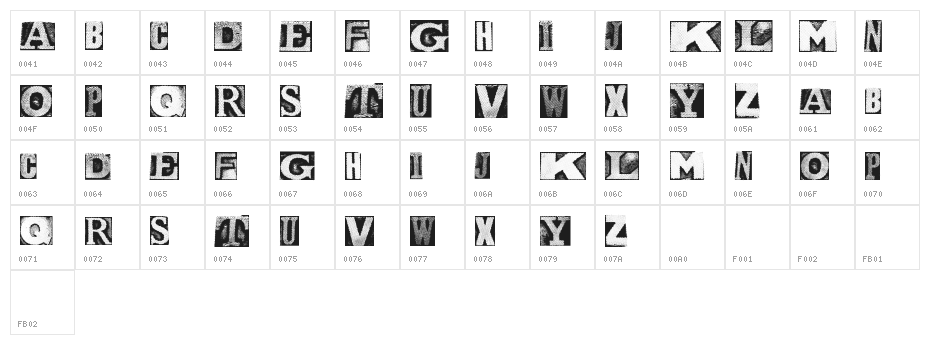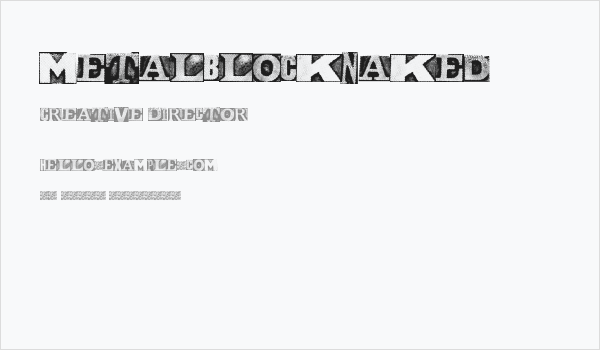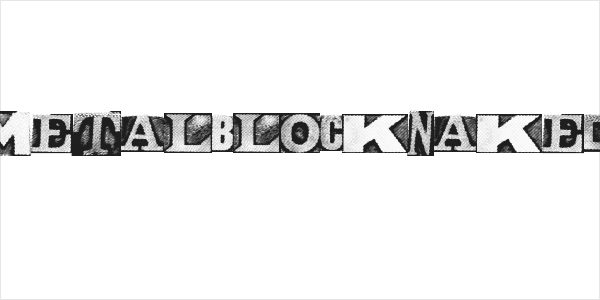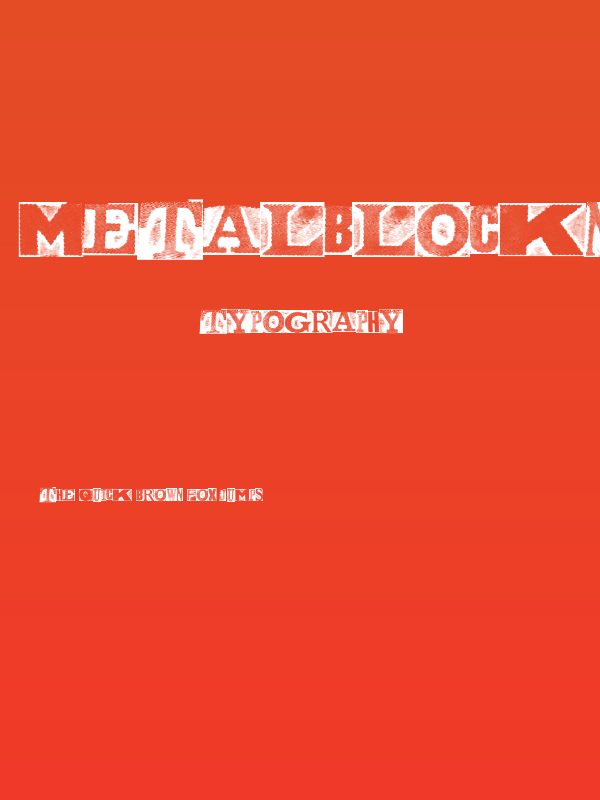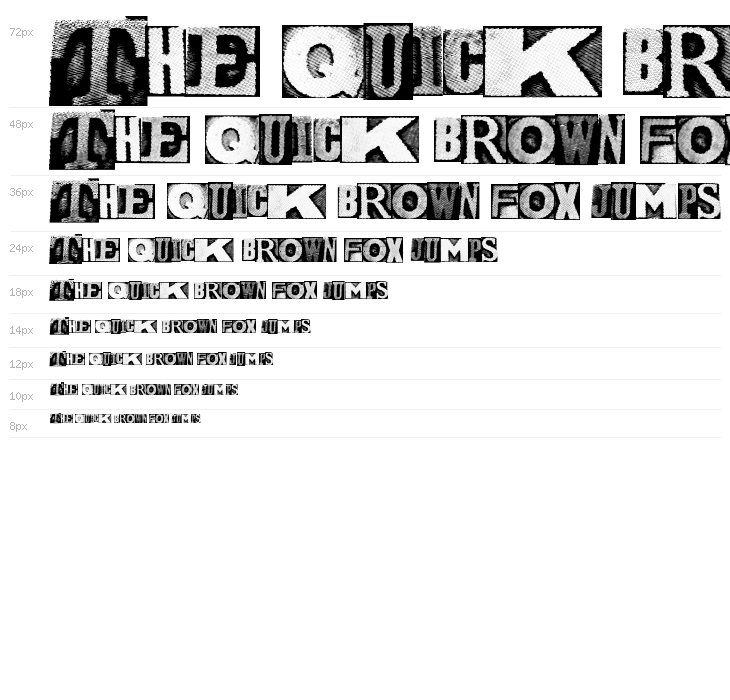
MetalblockNaked Font
MetalblockNaked Description
This font features a bold and industrial design, reminiscent of metal block printing. Each character is crafted with a strong, three-dimensional appearance, giving it a robust and impactful look. The uppercase letters are particularly striking, with thick strokes and angular edges that convey a sense of strength and durability. The lowercase letters maintain this boldness, ensuring consistency throughout the typeface. The numbers and special characters are equally well-designed, fitting seamlessly with the overall aesthetic. This font is ideal for projects that require a strong visual presence, such as posters, logos, and headlines. Its unique style makes it stand out, capturing attention with its bold and metallic characteristics.
| Overall Style | Industrial, Bold, Metallic |
| Proposed Projects | Ideal for posters, logos, headlines, and any project needing a strong visual impact. |